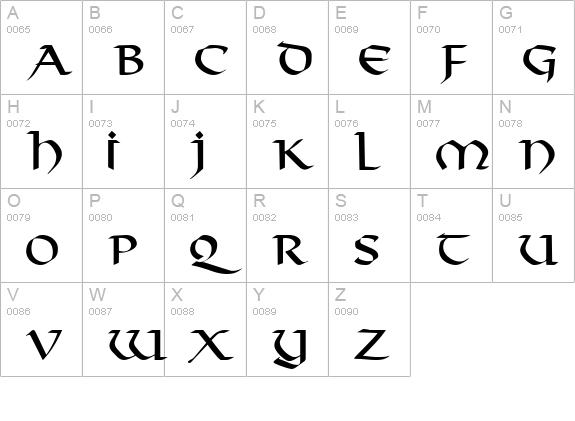
Valhalla Normal is the standard, neutral variant in the Valhalla typeface family \xE2\x80\x94 well suited to general body text, paragraphs, and standard typographic work.
Valhalla Normal font is a versatile and modern typeface that exudes elegance and sophistication. This font is perfect for creating eye-catching designs, whether it be for branding, logo design, or print materials. With its clean lines and balanced proportions, Valhalla Normal font effortlessly captures attention and adds a touch of refinement to any project. Its versatility allows it to be used in both digital and print mediums, making it a go-to choice for designers across various industries. One of the standout features of Valhalla Normal font is that it is available for free. Yes, you read that right! This stunning font can be downloaded at absolutely no cost from FontsMarket.com. This means that you can add a touch of class to your designs without breaking the bank. Whether you are a professional designer or a hobbyist, Valhalla Normal font is a must-have in your font collection. Its timeless appeal and the fact that it is freely available to download make it an irresistible choice. So why wait? Head over to FontsMarket.com and get your hands on this beautiful font today!